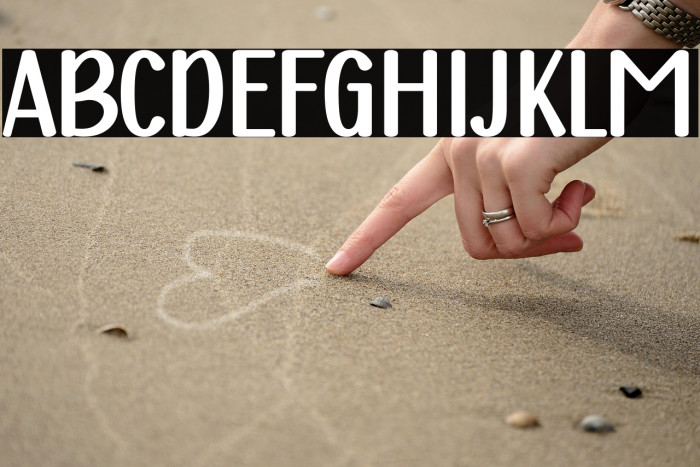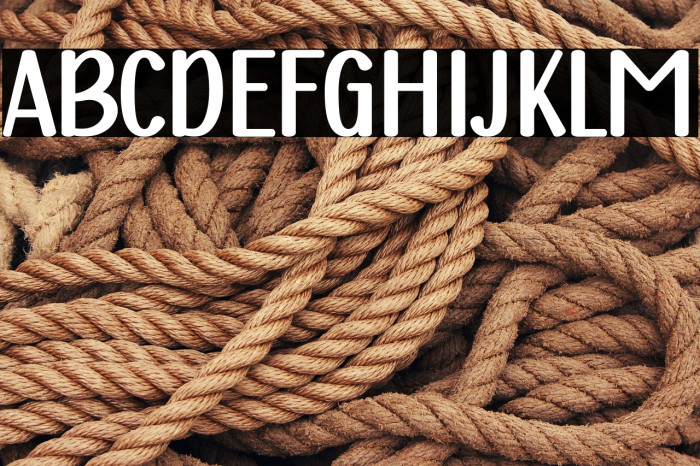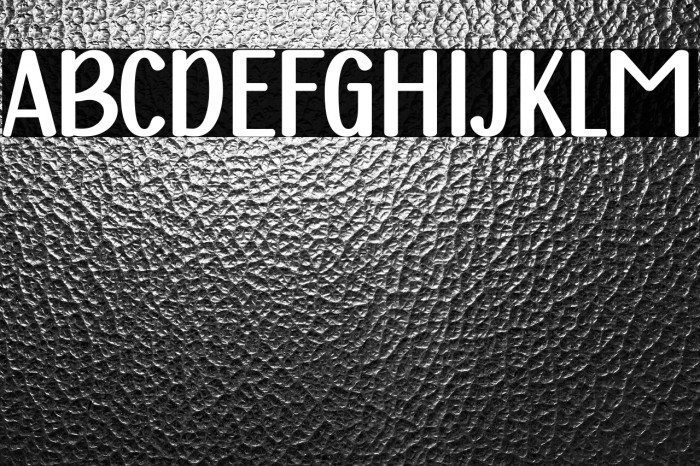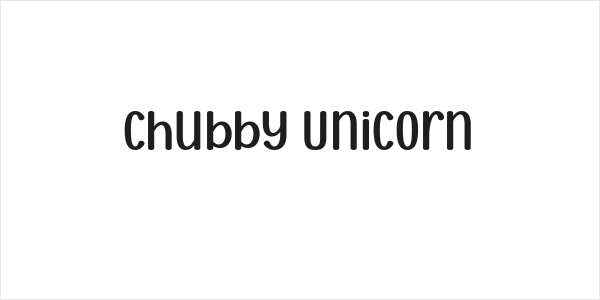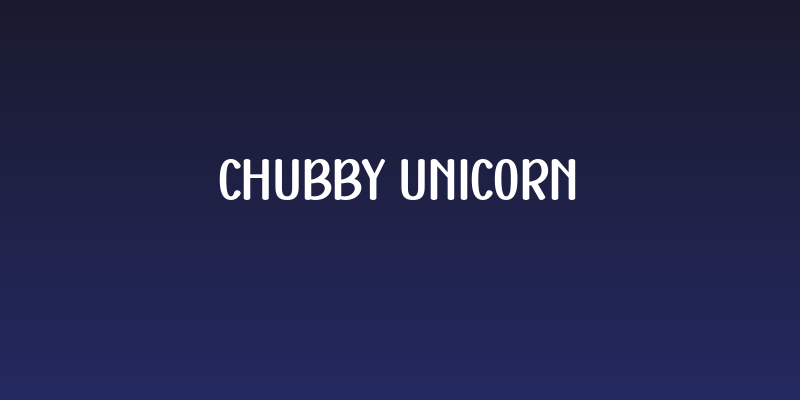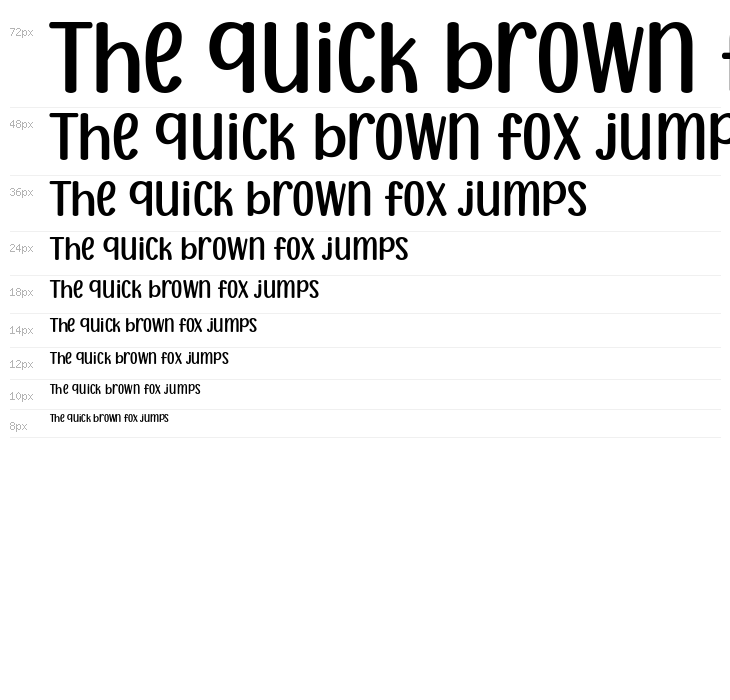
Chubby Unicorn Font
Chubby Unicorn Description
This playful and whimsical font features rounded, thick strokes that give it a friendly and approachable appearance. The characters are bold with a consistent weight throughout, creating a uniform look. The rounded edges and smooth curves add a touch of softness, making it ideal for designs that aim to convey warmth and fun. The font maintains a balanced structure with even spacing, ensuring readability while retaining its unique charm. Its bold presence makes it suitable for eye-catching headlines or creative projects that require a touch of personality.
| Proposed Projects | Ideal for children's books, playful branding, greeting cards, and casual invitations. |